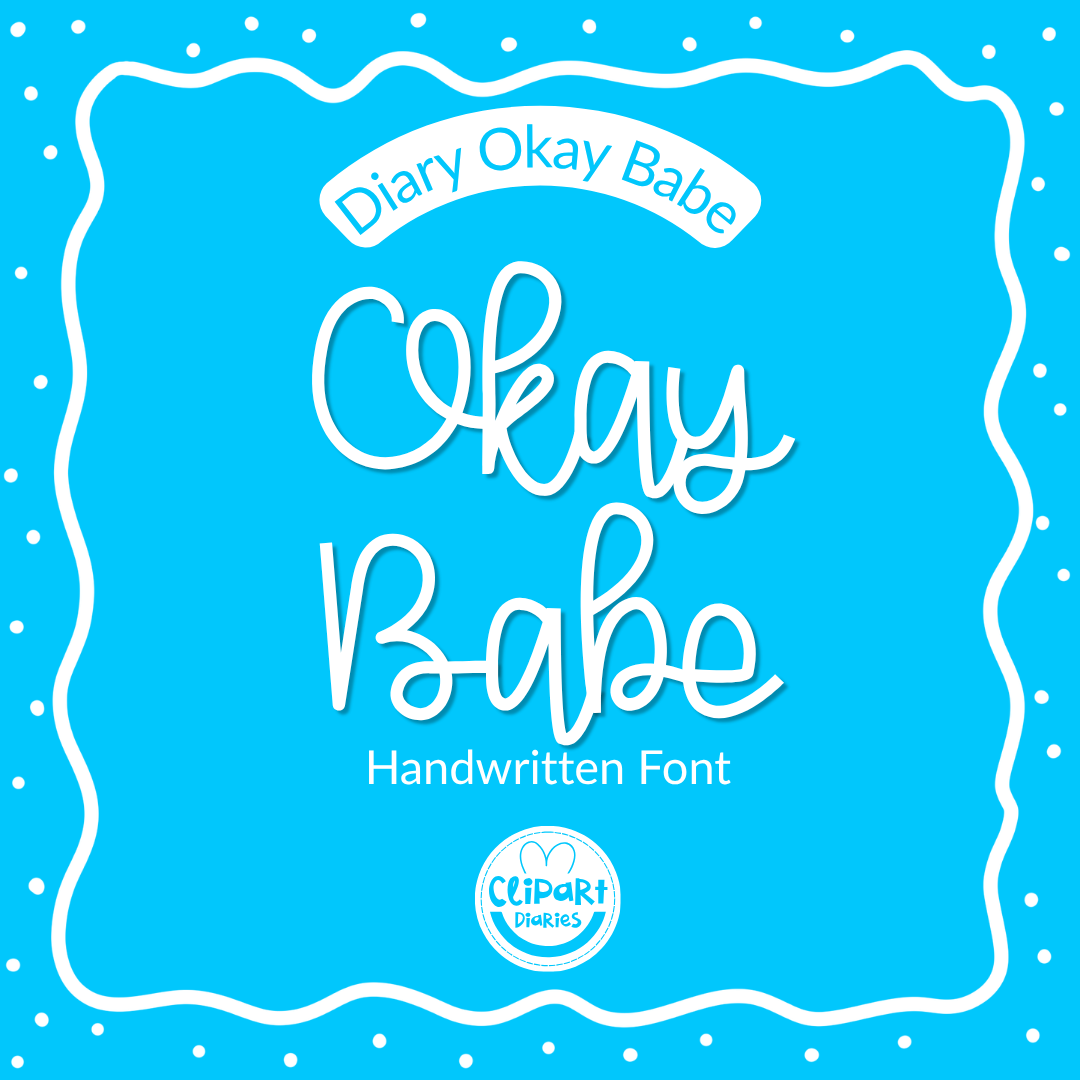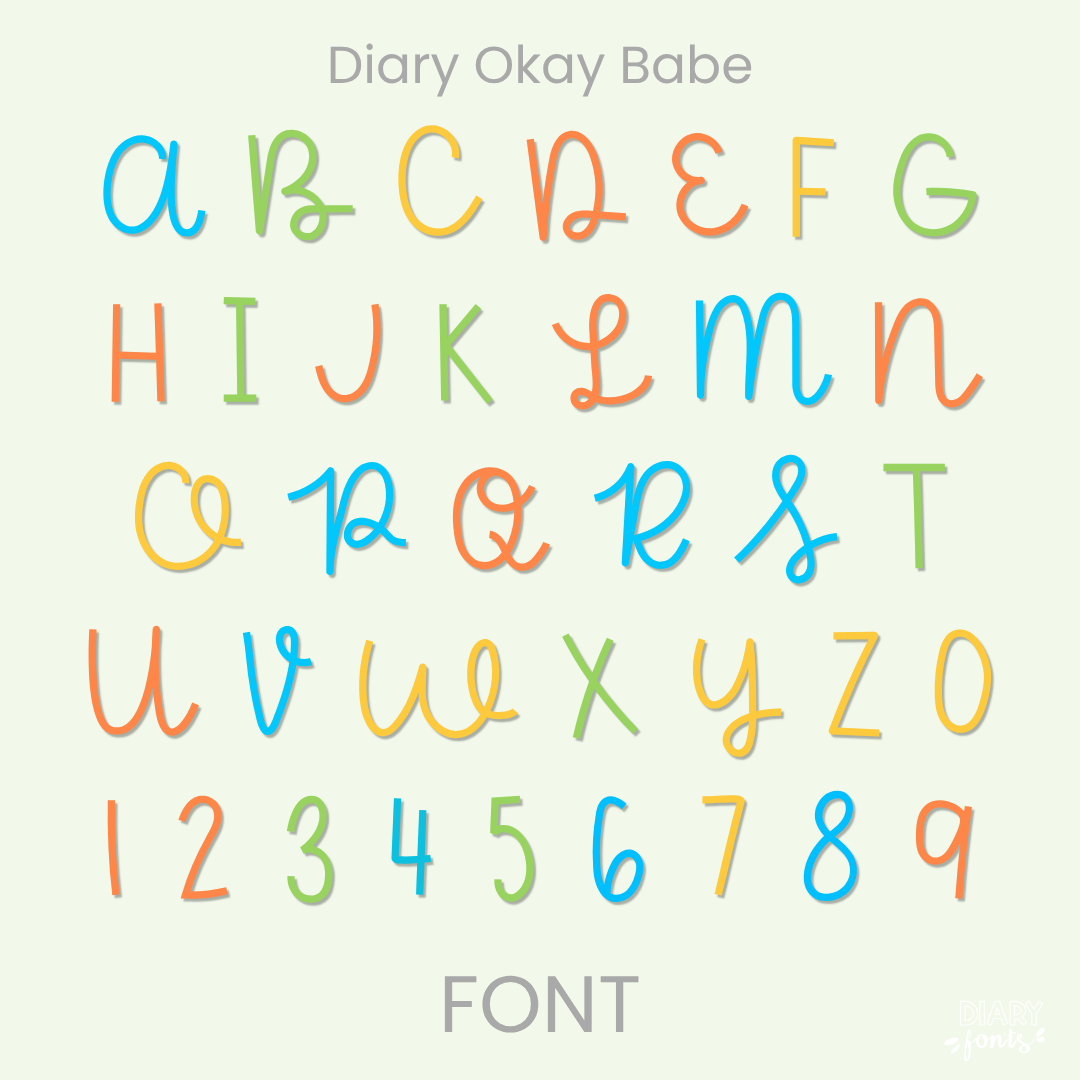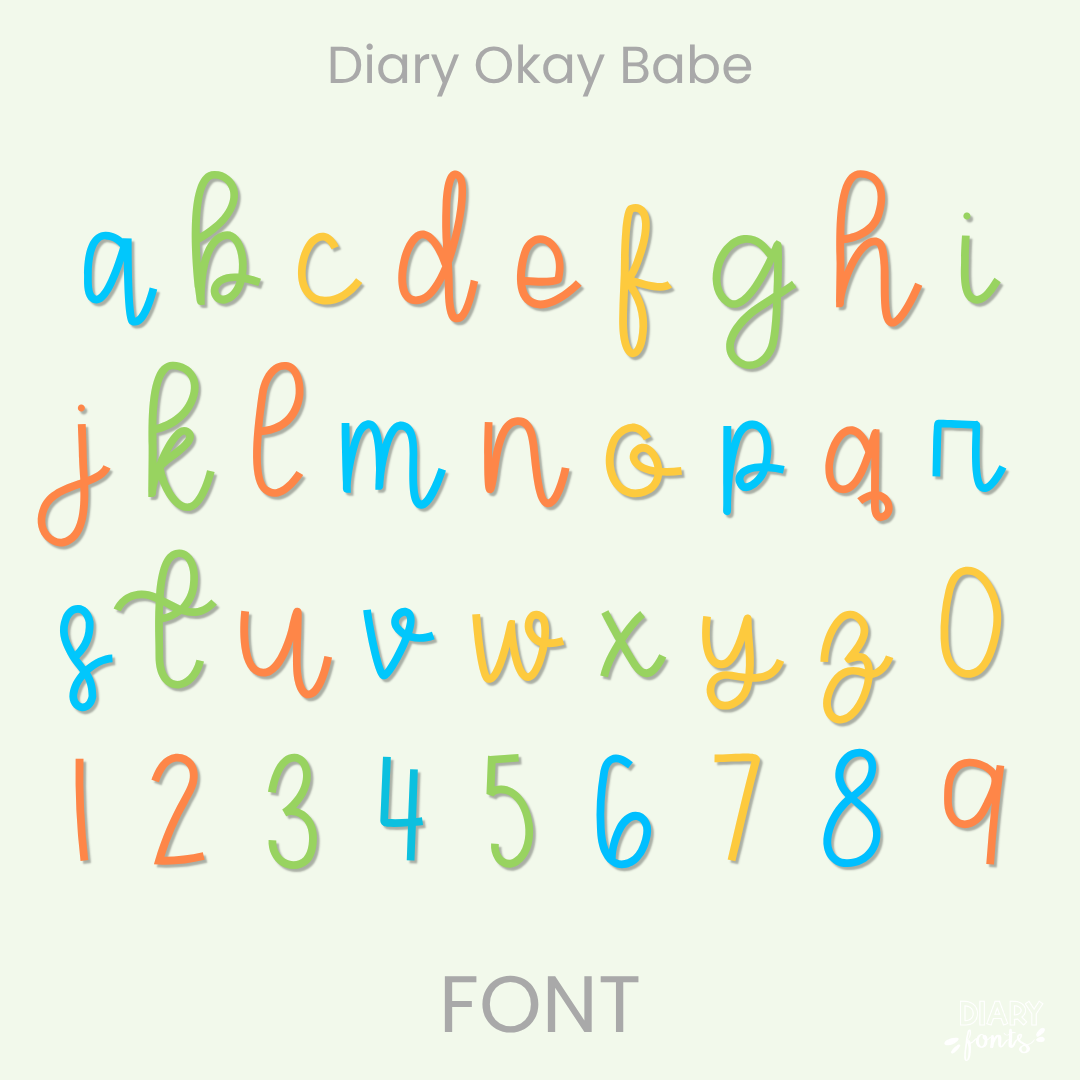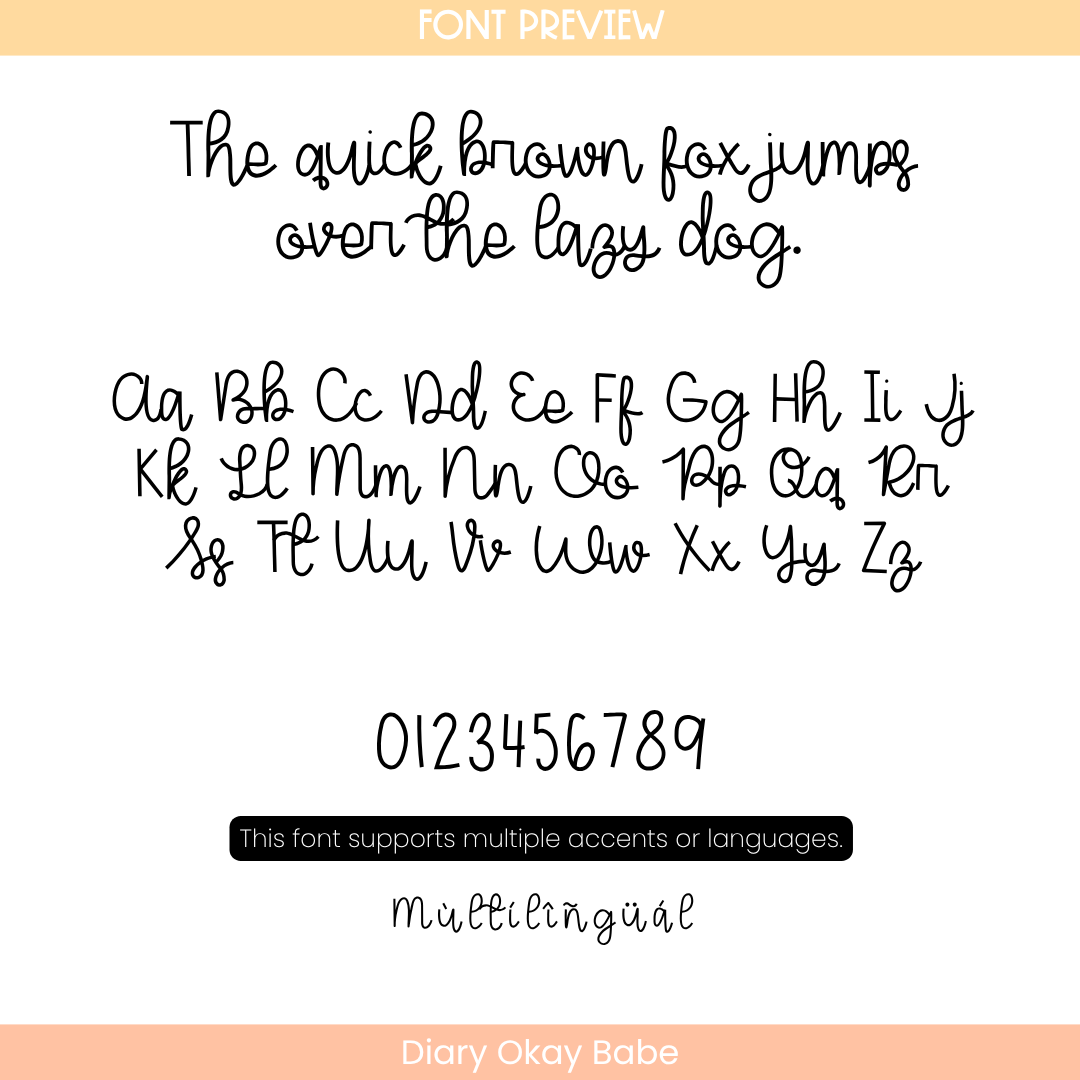
If you want to give your teaching materials an authentic, elegant yet friendly look, Diary Okay Babe is an exceptional choice. It features light, naturally linked script characters that capture the true rhythm of cursive penmanship while remaining beautifully clear and highly legible for students.
This versatile cursive font is a perfect fit for handwriting practice sheets, high school and middle school lesson templates, elegant classroom decor elements, morning greeting slides, and creative teacher planners. The package comes with a full set of uppercase and lowercase script letters, numbers, and multiple accent marks for global language support. It is quick to install and works beautifully on your computer across Canva, MS Office, and Adobe Apps, as well as on your iPad with Procreate and GoodNotes. Whether you are customizing assets for your own students or designing commercial educational products, this typeface adds a warm, graceful, and inviting aesthetic to your toolkit.